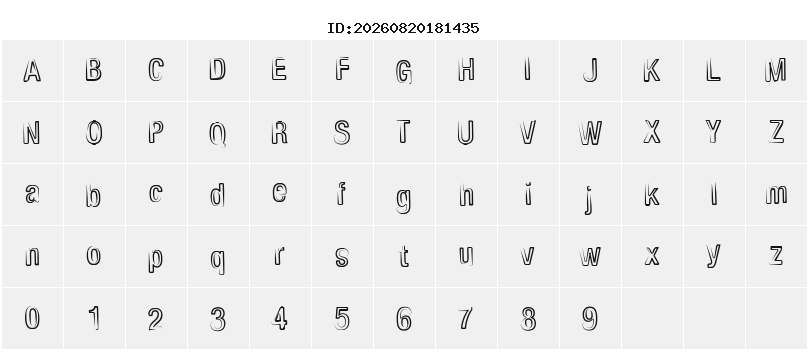
Sensitivity Preview
• Font Name: Sensitivity
• Full Font Name: Sensitivity
• PostScript Name: Sensitivity
• Designer: Andrew Boyle
About Sensitivity.ttf
Sensitivity.ttf is a modern, elegant sans-serif font designed for ultimate readability and visual harmony. Perfect for branding, headlines, web design, and print materials.